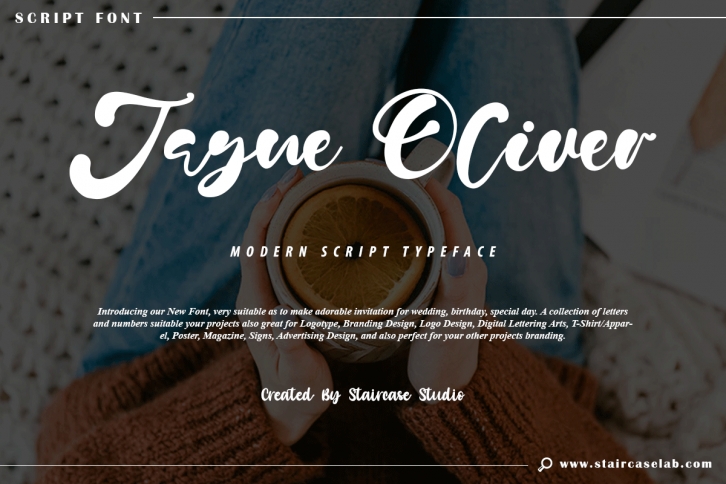
Jayne Oliver is a trendy script font. Incredibly versatile, this font fits a wide pool of designs, elevating them to the highest levels. Add this font to your favorite creative ideas and notice how it makes them come alive!